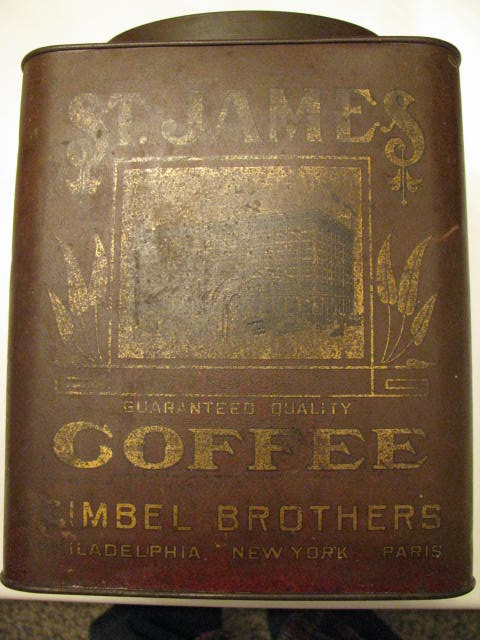
Some great lettering on an old coffee can
Picked this up at a yard sale today for $5.Not in the greatest of shape but it will be put to work.A 5 lb.coffee can with an oval cap.Looks like it might have been red originally;now a dark brown with what looks like gold leaf letters.